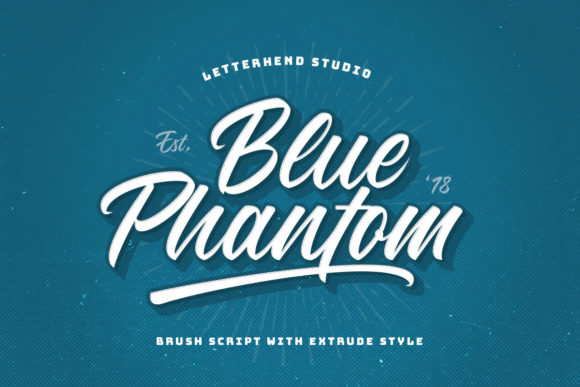
Introducing Blue Phantom Font: The Epitome of Classy and Modern Typography
Are you on the lookout for a font that exudes style, class, and a touch of nostalgia? Look no further than the Blue Phantom Font, a carefully handmade script that is sure to elevate your design projects to new heights. In this article, we’ll take a closer look at what makes Blue Phantom Font so special and why it’s the perfect choice for designers, artists, and typography enthusiasts alike.
The Story Behind Blue Phantom Font
Blue Phantom Font is the brainchild of a team of skilled designers who aimed to create a typeface that would seamlessly blend modernity with a hint of nostalgia. The result is a font that feels both fresh and timeless, making it perfect for a wide range of applications, from luxury branding to wedding invitations.
The design process behind Blue Phantom Font involved meticulous attention to detail, with each letterform carefully crafted to ensure a smooth, flowing script that radiates style and sophistication. The end result is a font that is not only visually stunning but also highly versatile.
What Makes Blue Phantom Font So Special?
So, what sets Blue Phantom Font apart from other fonts on the market? Here are just a few of its standout features:
- Handmade with love: Blue Phantom Font is a carefully handmade script, giving it a unique, personal touch that is hard to find in digital fonts.
- Classy and modern: This font effortlessly blends classic elegance with modern flair, making it perfect for designers who want to create sophisticated, eye-catching designs.
- Slightly nostalgic: Blue Phantom Font has a hint of nostalgia that gives it a warm, inviting feel, making it perfect for projects where you want to evoke a sense of history or tradition.
- Highly versatile: Whether you’re working on a luxury brand, a wedding invitation, or a packaging design, Blue Phantom Font is the perfect choice.
The Benefits of Using Blue Phantom Font
So, why should you choose Blue Phantom Font for your next design project? Here are just a few of the benefits of using this exceptional font:
- Instantly elevate your designs: With Blue Phantom Font, you can add a touch of class and sophistication to your designs, instantly elevating them to the next level.
- Stand out from the crowd: This unique, handmade font is sure to make your designs stand out from the crowd, grabbing the attention of your audience and leaving a lasting impression.
- Perfect for luxury branding: Blue Phantom Font is the perfect choice for luxury brands, adding a touch of elegance and refinement to any design.
Tips and Tricks for Getting the Most Out of Blue Phantom Font
To help you get the most out of Blue Phantom Font, here are a few expert tips and tricks:
- Experiment with different sizes: Blue Phantom Font looks great in a range of sizes, from large headings to smaller body text.
- Play with color: This font looks stunning in a range of colors, from rich blues and purples to metallic golds and silvers.
- Add some texture: Consider adding some texture or pattern to your design to give it an extra layer of depth and interest.
- Mix and match: Don’t be afraid to mix and match Blue Phantom Font with other fonts to create a unique, eye-catching design.
In conclusion, Blue Phantom Font is a truly exceptional typeface that is sure to elevate your design projects to new heights. With its classy, modern, and slightly nostalgic feel, this handmade script is perfect for designers, artists, and typography enthusiasts alike. Whether you’re working on a luxury brand, a wedding invitation, or a packaging design, Blue Phantom Font is the perfect choice.
- What is Blue Phantom Font?
- Blue Phantom Font is a carefully handmade script that radiates style, class, and a touch of nostalgia.